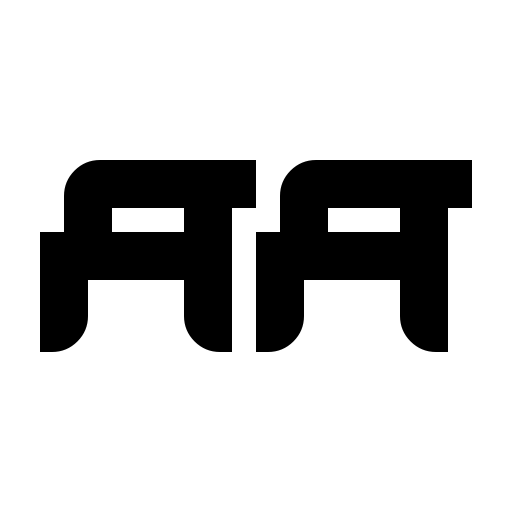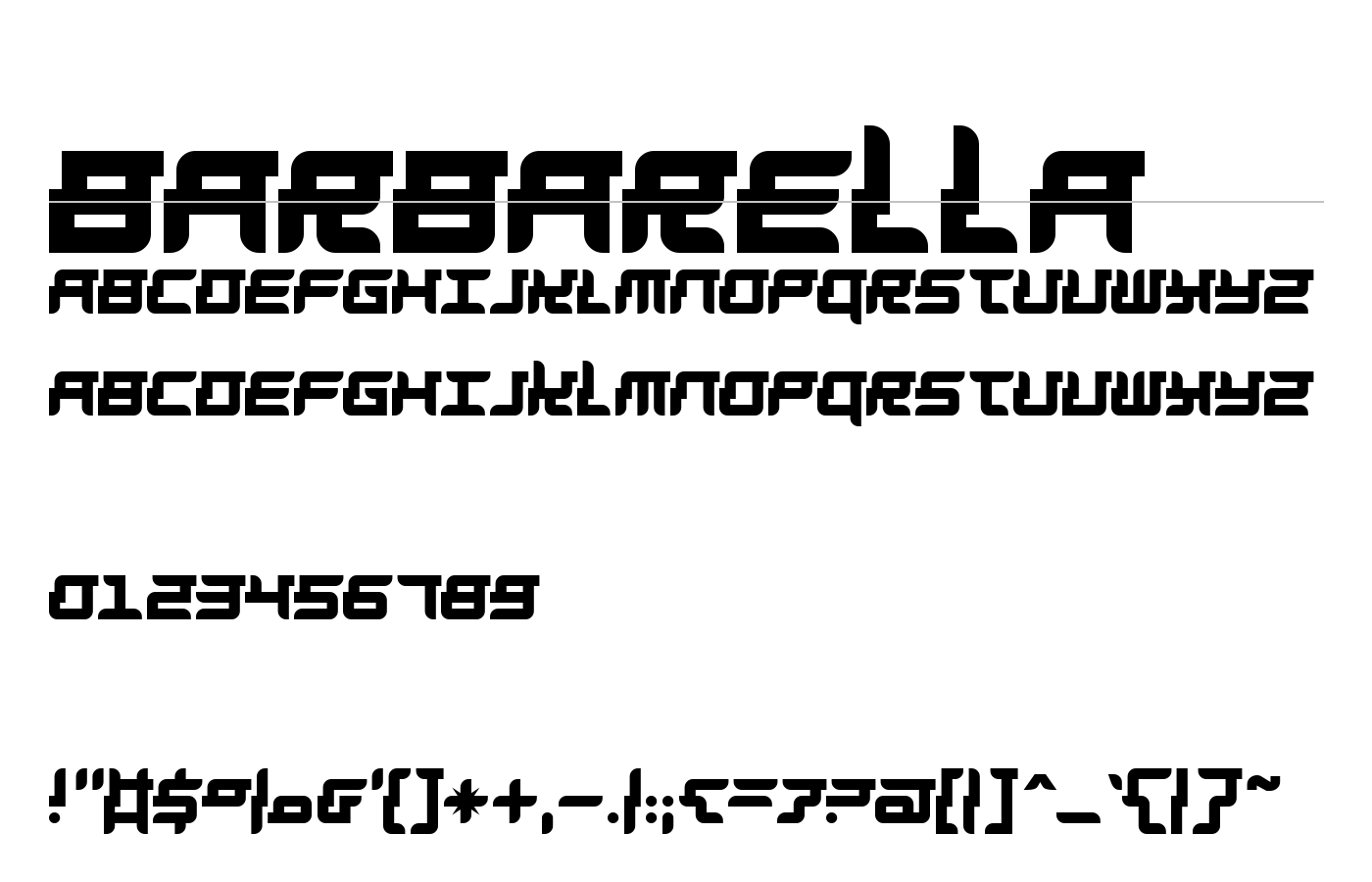
Barbarella is a bold, futuristic display font with a strong geometric and techno vibe. Its wide, condensed letterforms feature sharp edges and unique, blocky shapes that make it perfect for eye-catching headlines, branding, and designs that want to convey innovation and modernity. Ideal for tech, gaming, or sci-fi themed projects, Barbarella stands out with its confident, edgy personality and distinct style.
Barbarella Font